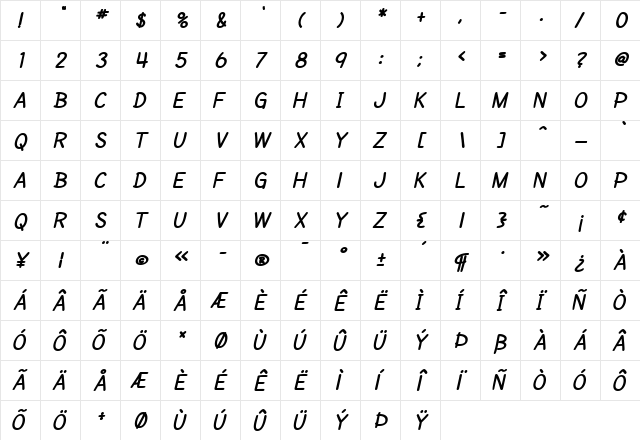
SF Cartoonist Hand SC Bold Italic Font Preview
Design Context for SF Cartoonist Hand SC Typeface
SF Cartoonist Hand SC has an approachable, lighthearted character — its loose, expressive forms are well-suited to children's content, casual branding, and fun-first design. The dynamic lean of this cut emphasises speed and emphasis in any layout.
Well-suited to food and beverage brands with personality, educational materials, and fun-forward identities.
Font Pairing: Pairs well with a rounded or humanist sans for body copy, maintaining the friendly tone without relying on SF Cartoonist Hand SC to carry extended reading.
Pro Tip: Use SF Cartoonist Hand SC at larger display sizes where its expressive character can land. Pair with a clean, simple sans for body copy to maintain readability.